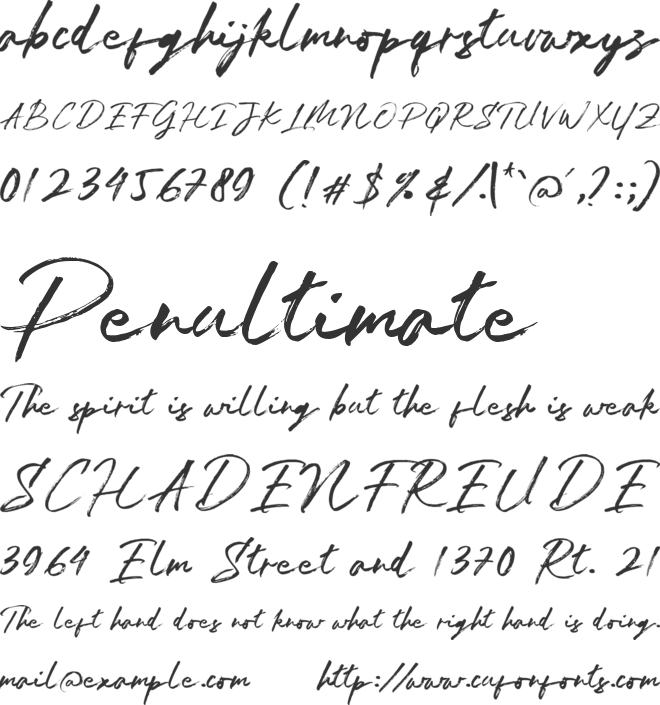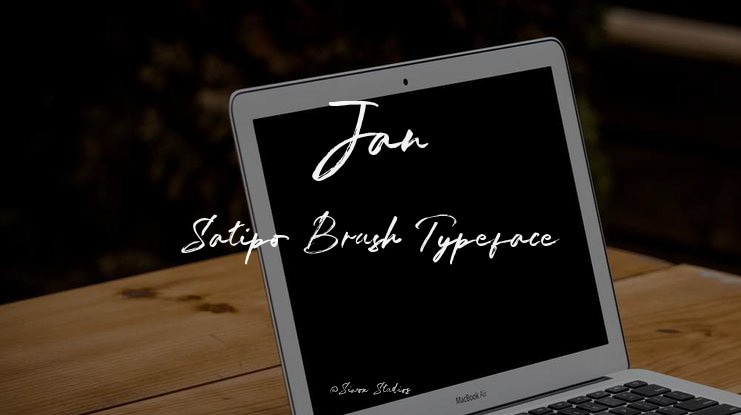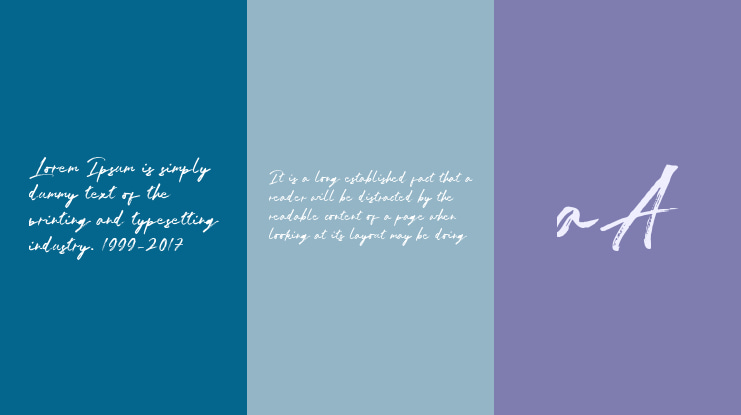
Jan Satipo Brush Font
Revitalize your next design project with the spectacular charm of the "Jan Satipo Brush Font". This organic and vivacious font is designed to breathe an element of nature's aesthetic into your creative pursuits. An ideal choice for embellishing taglines, titles, book covers, and logos, Jan Satipo Brush Font can also sprinkle its magic on your quotidian quotes, invitations, and posters.
Siwox Studios